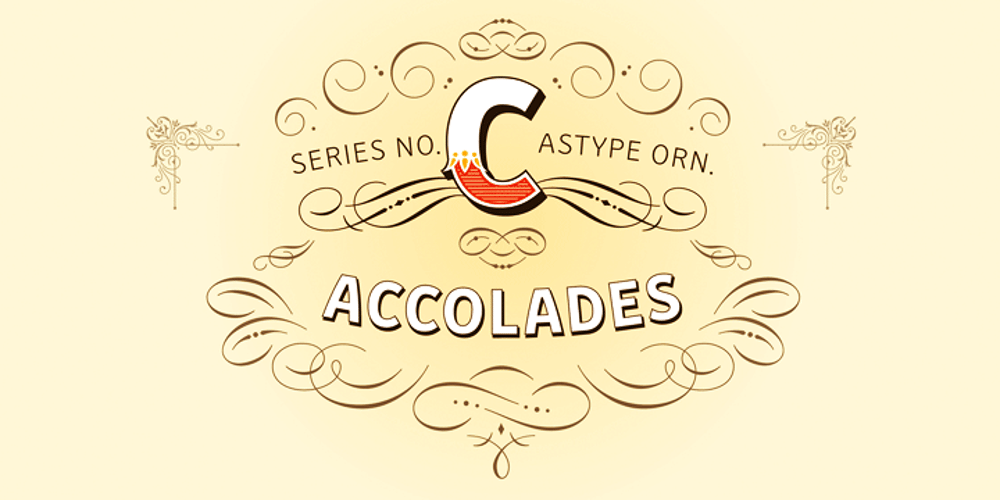
ASTYPE Ornaments Accolades C
ASTYPE Ornaments Accolades C font
ASTYPE Ornaments Accolades C Font Family was designed by Andreas Seidel and published by astype. ASTYPE Ornaments Accolades C contains 6 styles and family package options. Accolades C and C2 share the same main ornaments but differ in finishing. Accolades C uses pearls and diamonds, C2 does not. Accolades CX is an additional fitting set of borders. All fonts are available in two variations. A clean one and a distressed, grungy version (old). The layout samples from the PDF-specimen are included in the font packages and stored in InDesign CS3 format. Mostly all of the featured fonts of the specimen are available on MyFonts, too. Have a look at Secca Art Std, Secca Saloon Std, Gracia, Battista and Prillwitz.